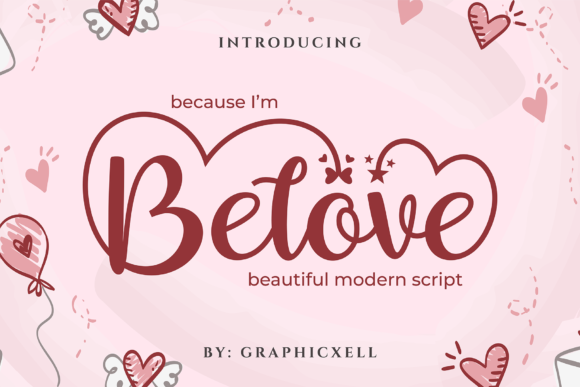
Looking for a gorgeous and captivating script font that will make your designs stand out? Look no further than Belove Font! This stunning font, created by the talented Graphicxell, is the perfect choice for anyone looking to elevate their design game.
Belove Font is a dreamy and beautiful handwritten font that will make your heart skip a beat. Its distinct and well-rounded letters give it a unique and artistic look that is sure to capture the attention of anyone who sees it. Whether you're creating wedding invitations, logos, or social media graphics, Belove Font is the perfect choice.
But what really sets Belove Font apart is its incredible versatility. This font is perfect for any design project you can imagine. Use it to create romantic and whimsical designs, or to add a touch of elegance to your branding. With Belove Font, the possibilities are endless.